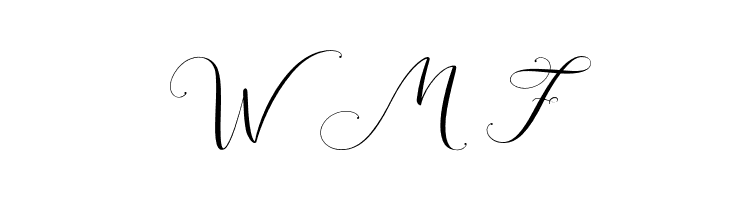
• andayani
An elegant script font with flowing, cursive letterforms and a classic, decorative style.
• andayani
An elegant script font with flowing, cursive letterforms and sophisticated style.
• AndBullets
An abstract, artistic font with intricate, swirling designs.
• Andecha
A dynamic and expressive handwritten font with playful curves and irregular strokes.
• Andeglei
An elegant script font with ornate flourishes and high contrast strokes.
• Andeglei
An elegant script font with intricate swirls and high contrast, ideal for formal designs.
• Andeglei san
A modern, decorative font with elongated, narrow letterforms and artistic flair.
• Andeldow
A casual, handwritten font with a dynamic and flowing style.
• Andella
An elegant script font with flowing, cursive letterforms and intricate details.
• Andella
An elegant script font with flowing, cursive strokes and sophisticated style.
• Anderella Demo
A playful and elegant handwritten script font with a whimsical flair.
• Anderik
A dynamic and fluid script font with elegant, flowing strokes.
• Andersans
A modern, geometric sans-serif font with a clean and balanced appearance.
• ANDERSON
A bold, textured font with a distressed, stencil-like appearance.
• Anderson Dings 2
A dingbat font with sci-fi vehicle illustrations and a bold display title.
• Anderson Dings 3
A bold, decorative dingbat font with illustrated character icons.
• Anderson Signature Swash
Elegant swashes with smooth, flowing strokes for decorative use.
• Anderson Silva
A dynamic blend of cursive elegance and bold modernity.
• Anderson Space1999 Dings
Decorative font with space-themed elements.
• Anderson UFO
Science fiction-themed pictogram and icon set with technical illustrations.